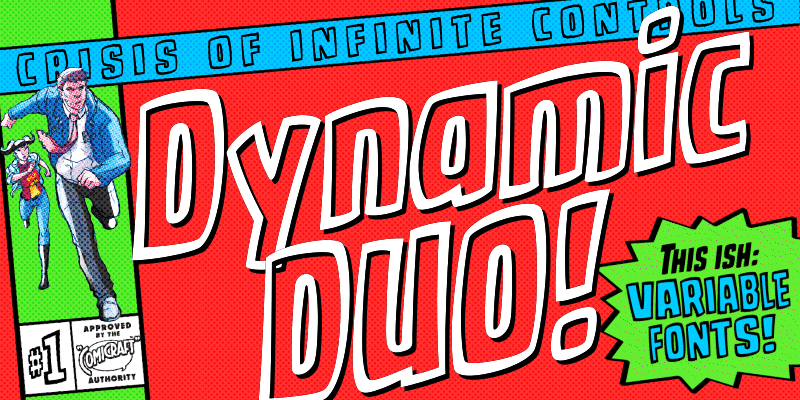
The World’s Greatest Comic Book Fonts! Having dutifully lettered thousands of comic books, Comicraft’s Fearless Fonts save the day in video games, TV shows, movie titles and wherever fun, lively fonts are needed.
In 1992, the Dynamic Duo of Richard Starkings and John Roshell, and their Fearless Fleet of Font Finaglers, began providing unique design and fine lettering to the comic book, TV and video game industries, and have become known for pioneering the use of the computer in the art of comic book lettering.
Trapped in a world they never made, Comicraft’s Fearless Fonts will come to your rescue in the nick of time!